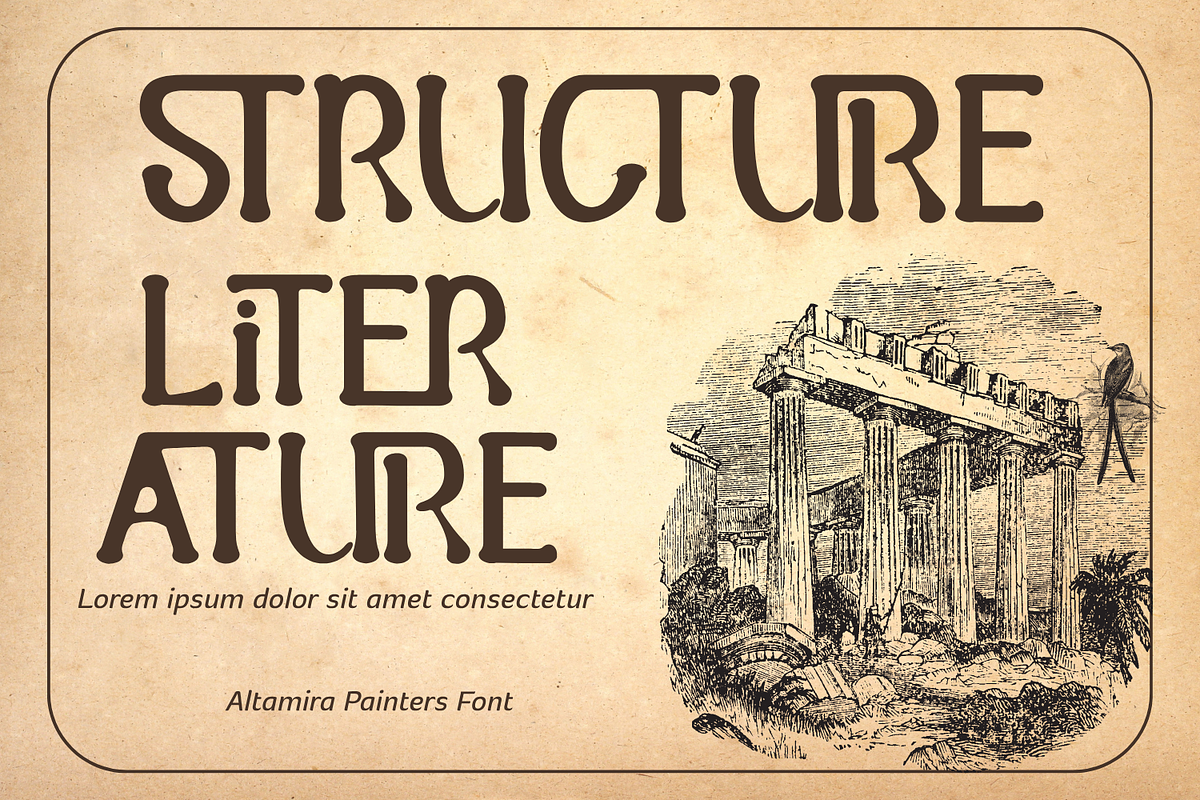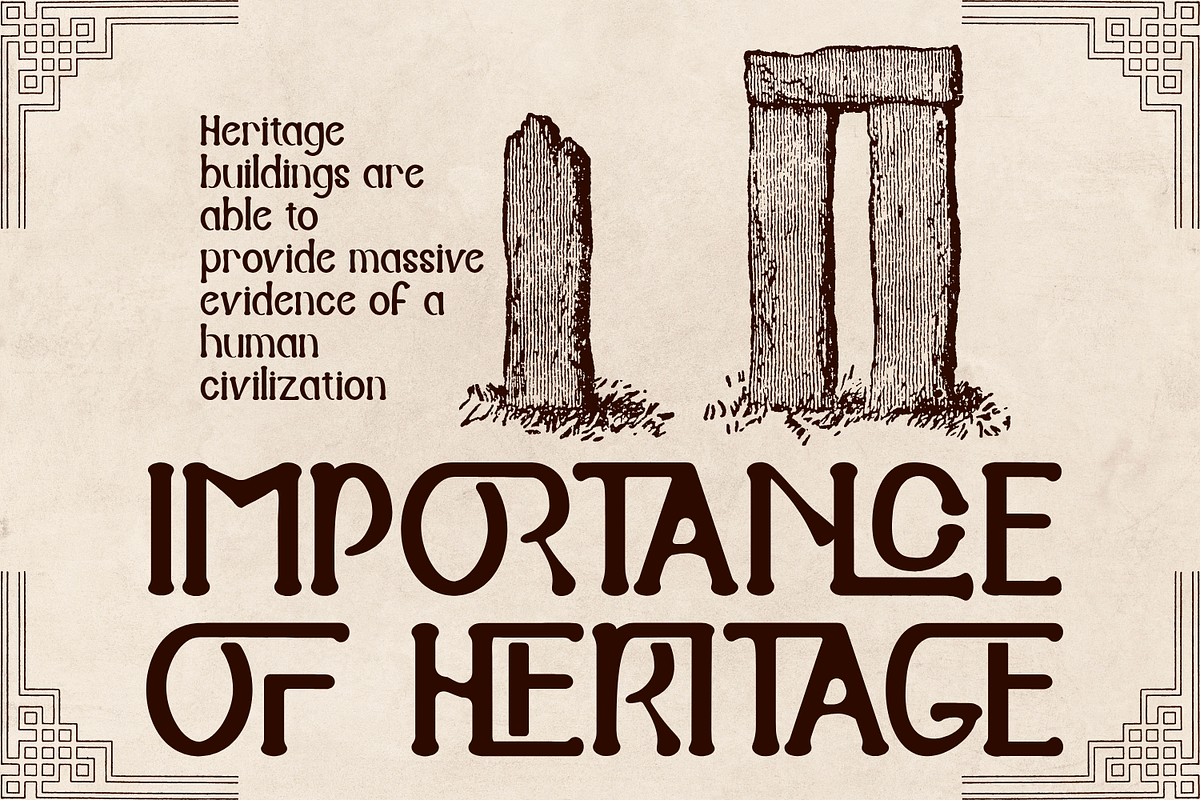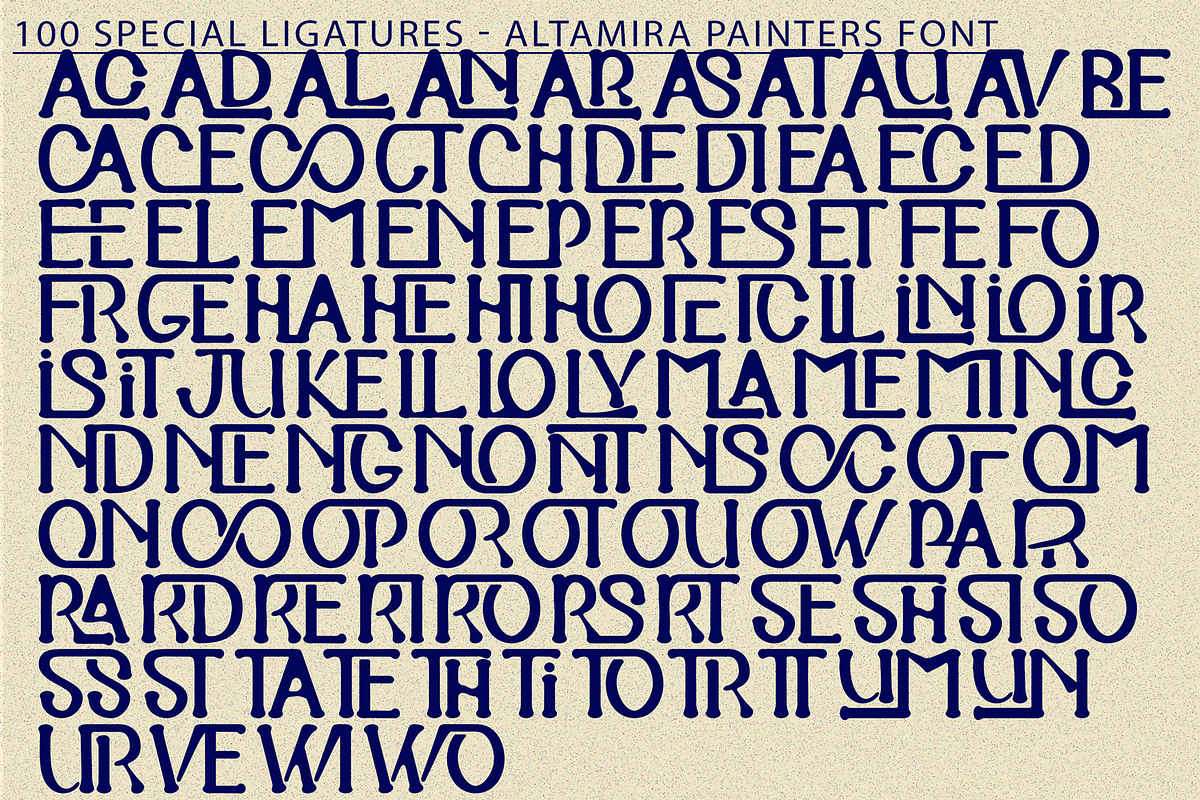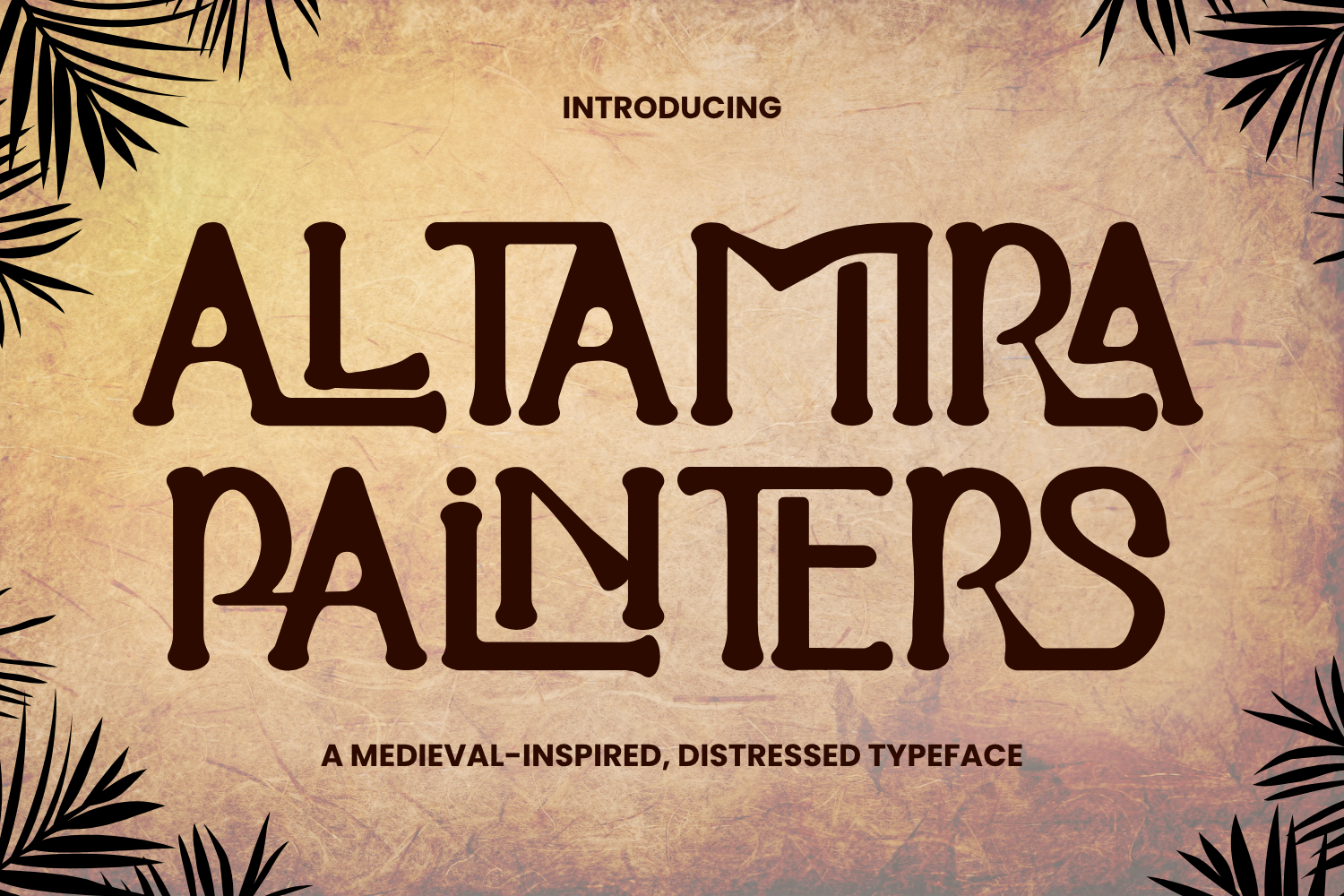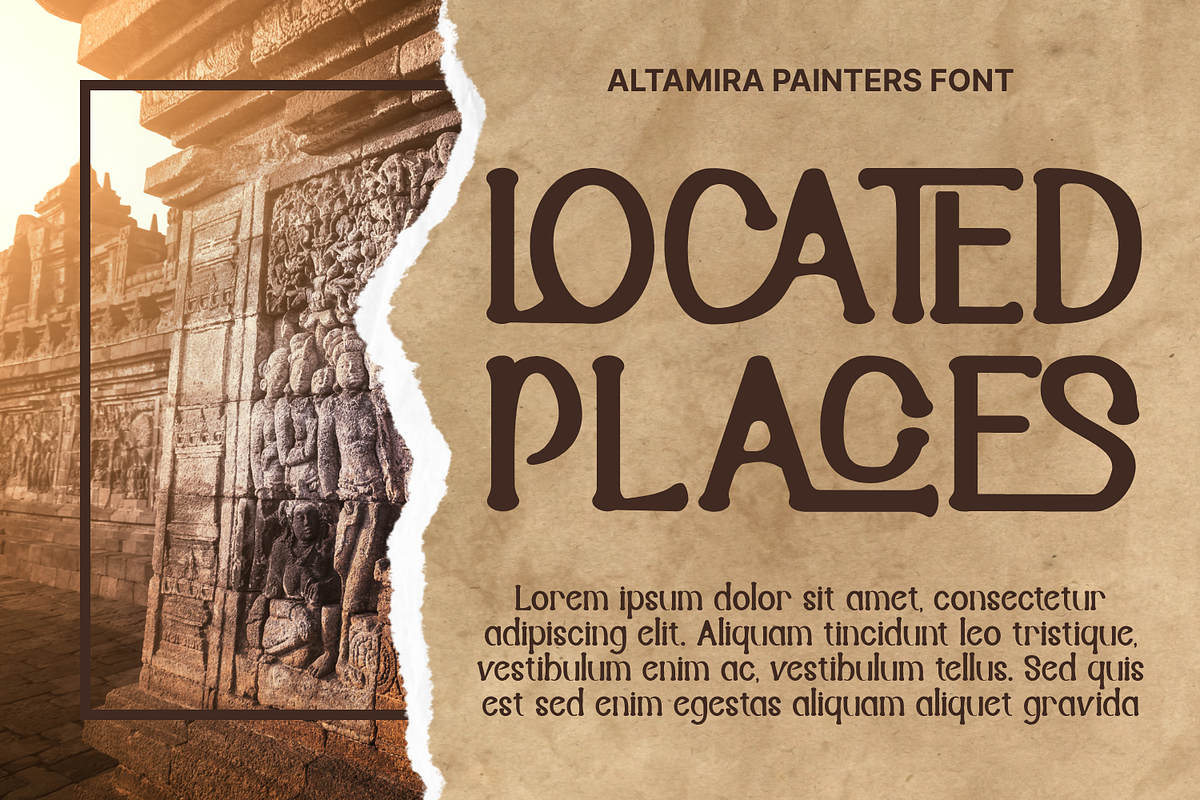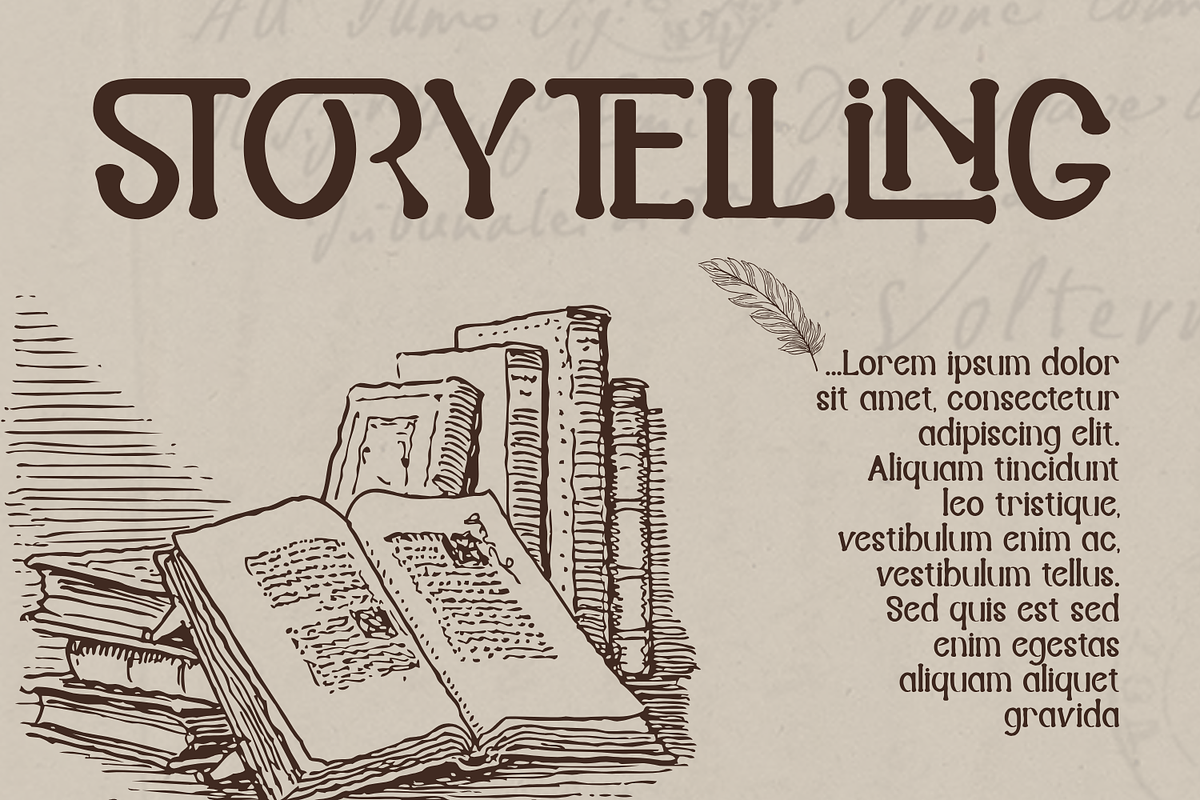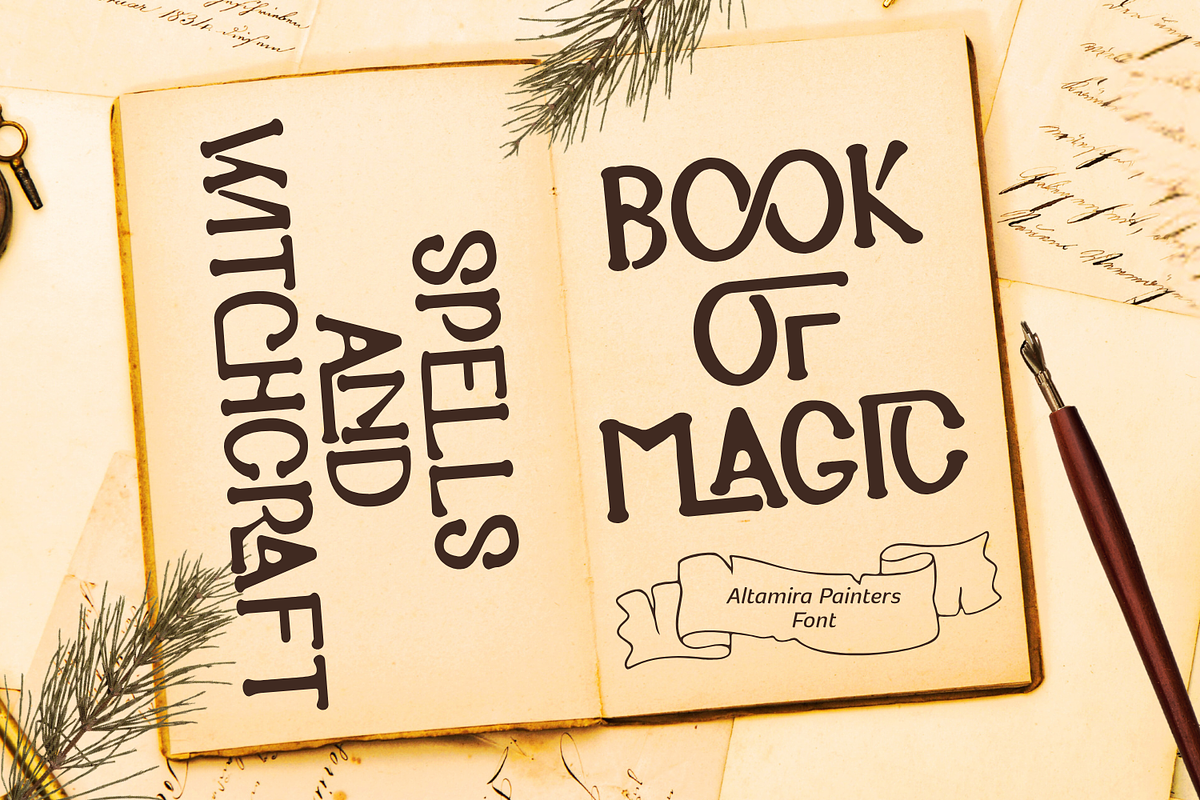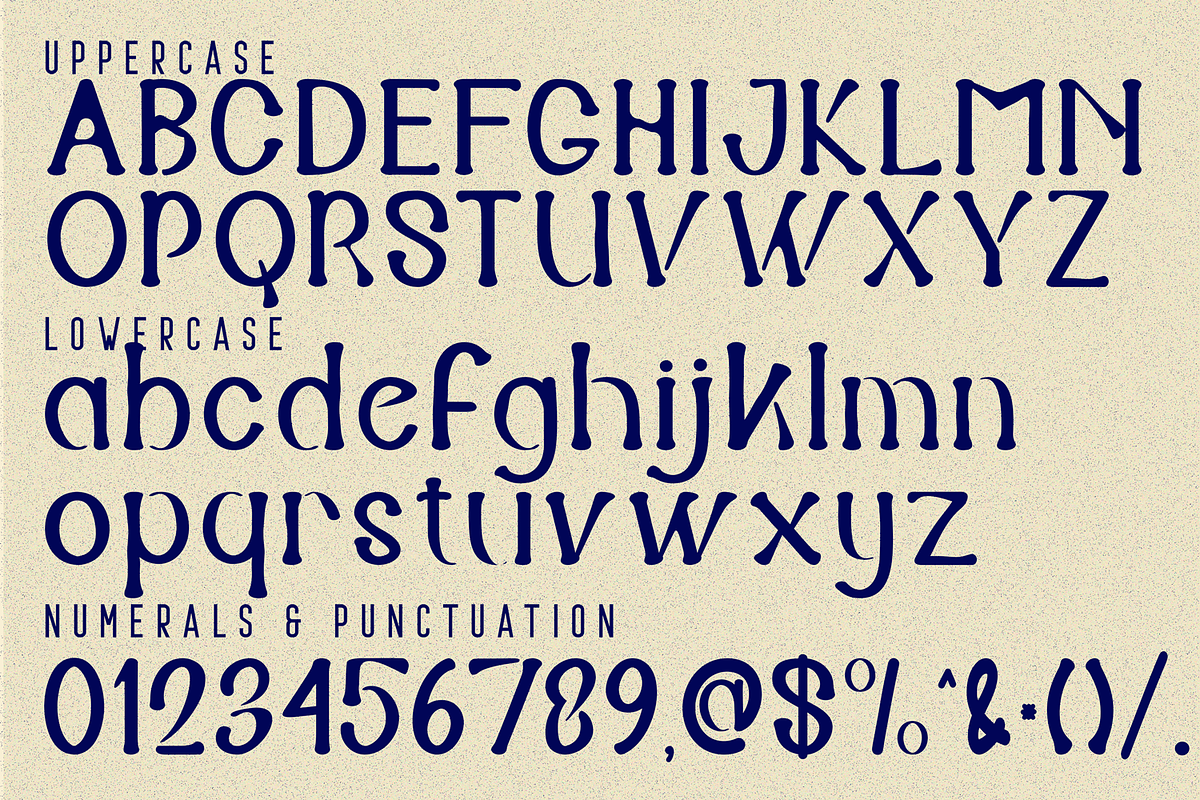
ALTAMIRA PAINTERS FONT
ALTAMIRA PAINTERS FONT, a sleek and futuristic geometric display font inspired by modular and digital aesthetics. With its smooth curves, squared corners, and clean lines, this font perfectly blends technology and artistry, making it ideal for modern branding, posters, interfaces, and creative titles.
- Uppercase & Lowercase Letters
- Approximately 100 Special Ligatures for advanced typographic styling
- Numerals & Punctuation for full design flexibility
- Accented Characters supporting multiple languages
About 100 ligatures combined with Stylistic Alternates Font:
AC AD AL AN AR AS AT AU AV BE CA CE CH CO CT DE DI EA EC ED EE EL EM EN EP ER ES ET FE FO FR GE HA HE HI HO IE IC IL IN IO IR IS IT JU KE LA LE LI LL LO LY MA ME MI NC ND NE NG NO NT NS OC OF OM ON OO OP OR OT OU OW PA PR RA RD RE RI RO RS RT SE SH SI SO SS ST TA TE TH TI TO TR TT UM UN UR VE WI WO